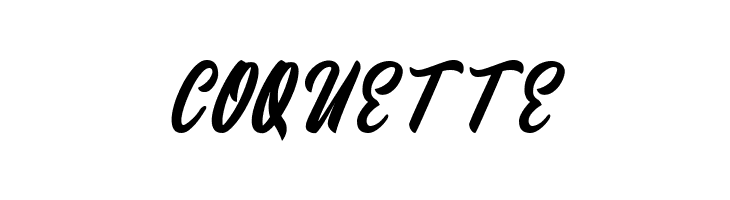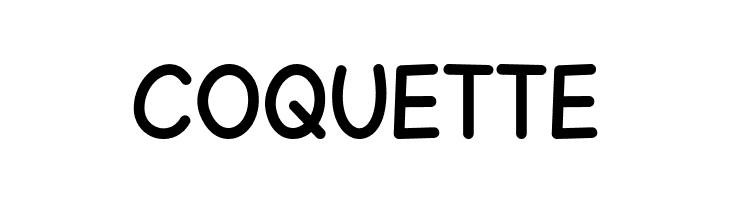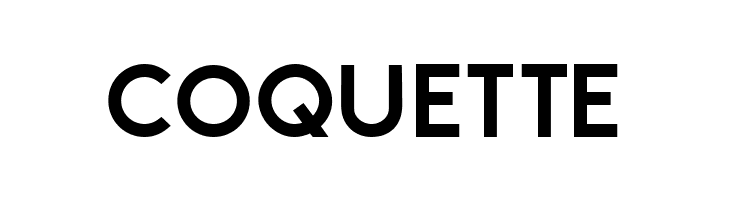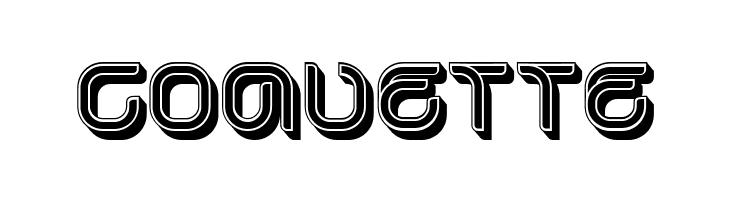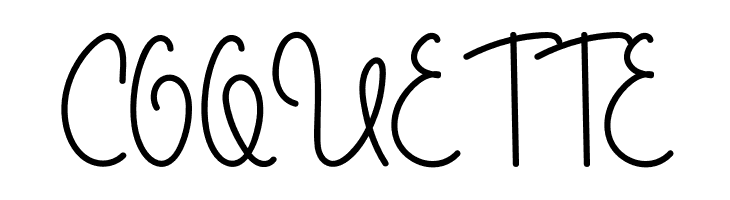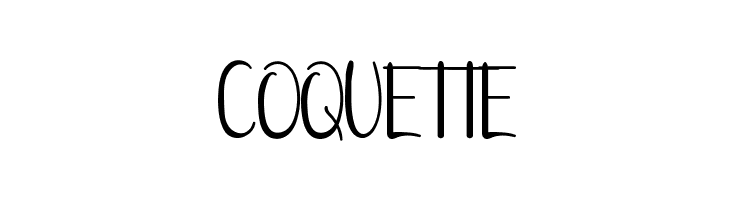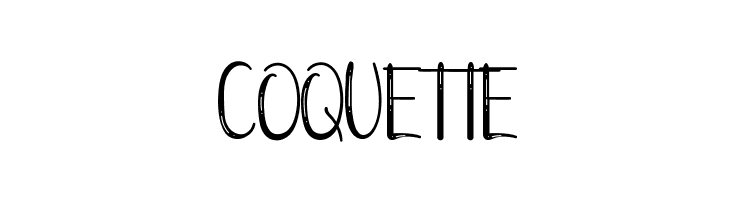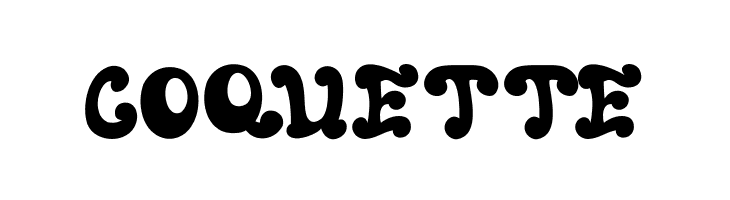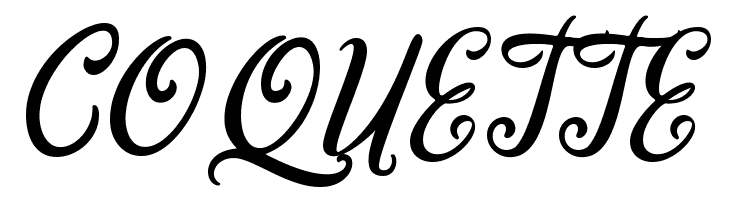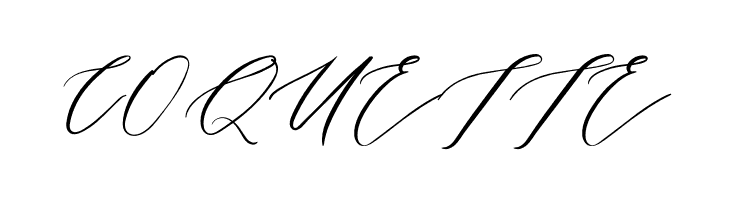
( Fonts by Gyom Seguin - last-soundtrack.daportfolio.com ) A bold, distressed font with a vintage, grunge aesthetic and high contrast. Download 1097 Downloads@WebFont
( Fonts by a Max Infeld - XEROGRAPHER FONTS - xerographer.blogspot.com . Personal-use only. For commercial use please contact owner. ) A distressed, edgy font with a hand-drawn, dynamic style. Download 112 Downloads@WebFont
( Fonts by Salt --- Pepper Designs - Personal-use only. For commercial use please contact owner. ) A whimsical, hand-drawn font with tall, narrow letters and playful curves. Download 33 Downloads@WebFont
( Fonts by a Max Infeld - XEROGRAPHER FONTS - xerographer.blogspot.com . Personal-use only. For commercial use please contact owner. ) A bold, textured font with a gritty, vintage appearance. Download 388 Downloads@WebFont
( Fonts by a Max Infeld - XEROGRAPHER FONTS - xerographer.blogspot.com . Personal-use only. For commercial use please contact owner. ) A bold, decorative font with a unique slashed pattern for dynamic visual impact. Download 209 Downloads@WebFont
( Fonts by Vladimir Nikolic - www.creativefabrica.com/designer/vladimirnikolic/ - Personal-use only. For commercial use please contact owner. ) A modern, bold sans-serif font with geometric influences. Download 138 Downloads@WebFont
( Fonts by Inermedia Studio - Personal-use only. For commercial use please contact owner. ) A bold, dynamic script font with flowing, cursive letterforms. Download 44 Downloads@WebFont
( Fonts by Omotu Studio - Ibnu Utomo - Personal-use only. For commercial use please contact owner. ) An elegant script font with flowing, interconnected letters and intricate swirls. Download 33 Downloads@WebFont
( Fonts by Omotu Studio - Ibnu Utomo - Personal-use only. For commercial use please contact owner. ) An elegant and decorative script font with flowing, cursive letterforms. Download 44 Downloads@WebFont
( Fonts by Jonathan S. Harris - www.tattoowoo.com. Personal-use only. For commercial use please contact owner. ) A bold, playful font with a hand-drawn, outlined style. Download 180 Downloads@WebFont
( Fonts by Edric Studio - Personal-use only. For commercial use please contact owner. ) A playful, handwritten font with rounded edges and a casual style. Download 86 Downloads@WebFont
( Fonts by Wahyu Eka Prasetya - wepfont.com - Personal-use only. For commercial use please contact owner. ) A bold, expressive handwritten font with dynamic strokes and playful character. Download 63 Downloads@WebFont
( Fonts by Md Shohail Bhuian - Personal-use only. For commercial use please contact owner. ) A bold, rugged font with distressed edges and a hand-crafted appearance. Download 42 Downloads@WebFont
( Fonts by Wahyu Eka Prasetya - wepfont.com - Personal-use only. For commercial use please contact owner. ) A fluid and elegant handwritten cursive font. Download 2249 Downloads@WebFont
( Fonts by Din Studio - Donis Miftahudin - Personal-use only. For commercial use please contact owner. ) An elegant script font with fluid, graceful strokes and artistic flair. Download 76 Downloads@WebFont
( Fonts by Rantautype - Yudi Pratama Chandra - Personal-use only. For commercial use please contact owner. ) A fluid and elegant script font with graceful curves and a handwritten feel. Download 61 Downloads@WebFont
( Fonts by a Galdino Otten - galdinootten.com . Personal-use only. For commercial use please contact owner. ) A bold, decorative font with a vintage, textured style. Download 586 Downloads@WebFont
( Fonts by Woodcutter Manero - http://www.woodcutter.es - Personal-use only. For commercial use please contact owner. ) An ornate, decorative font with intricate borders around bold, capitalized characters. Download 71 Downloads@WebFont
( Fonts by Galdino Otten Fonts - www.galdinootten.com - Personal-use only. For commercial use please contact owner. ) A bold, distressed font with an eroded, vintage texture. Download 754 Downloads@WebFont
( Fonts by www.woodcutter.es - woodcutter Manero - Personal-use only. For commercial use please contact owner. ) A bold, rounded, and outlined font with a playful and modern style. Download 87 Downloads@WebFont
( Fonts by Galdino Otten Fonts - www.galdinootten.com - Personal-use only. For commercial use please contact owner. ) A tall, narrow font with consistent stroke width and a modern, whimsical style. Download 132 Downloads@WebFont
( Fonts by Goma Shin - www.geocities.jp/gomarice_font/ - Personal-use only. For commercial use please contact owner. ) A modern serif font with fine lines and elegant curves. Download 61 Downloads@WebFont
( Fonts by www.woodcutter.es - woodcutter Manero - Personal-use only. For commercial use please contact owner. ) A bold, playful font with a unique shadow effect and rounded characters. Download 117 Downloads@WebFont
( Fonts by www.woodcutter.es - woodcutter Manero - Personal-use only. For commercial use please contact owner. ) A bold, decorative font with a Western, woodcut style. Download 110 Downloads@WebFont
( Fonts by www.woodcutter.es - woodcutter Manero - Personal-use only. For commercial use please contact owner. ) A bold, decorative font with intricate patterns and a vintage flair. Download 81 Downloads@WebFont
( Fonts by Vladimir Nikolic - www.creativefabrica.com/designer/vladimirnikolic/ - Personal-use only. For commercial use please contact owner. ) A bold, geometric font with a futuristic and decorative style. Download 43 Downloads@WebFont